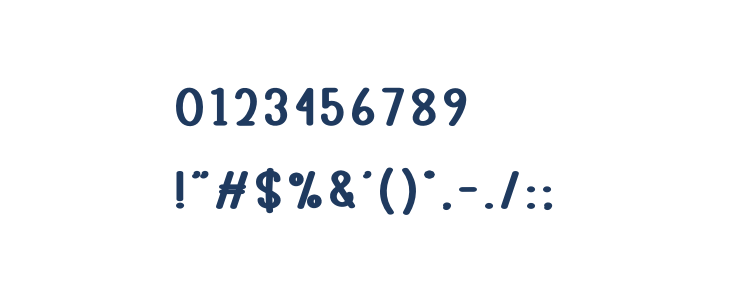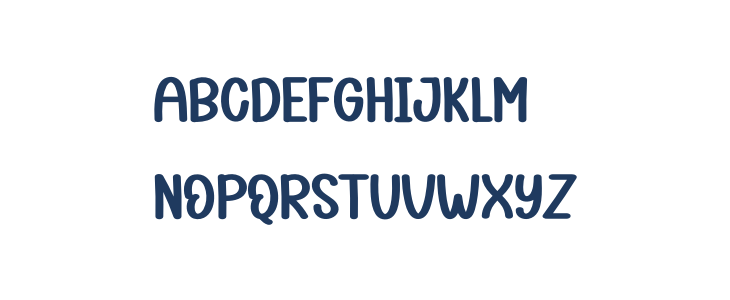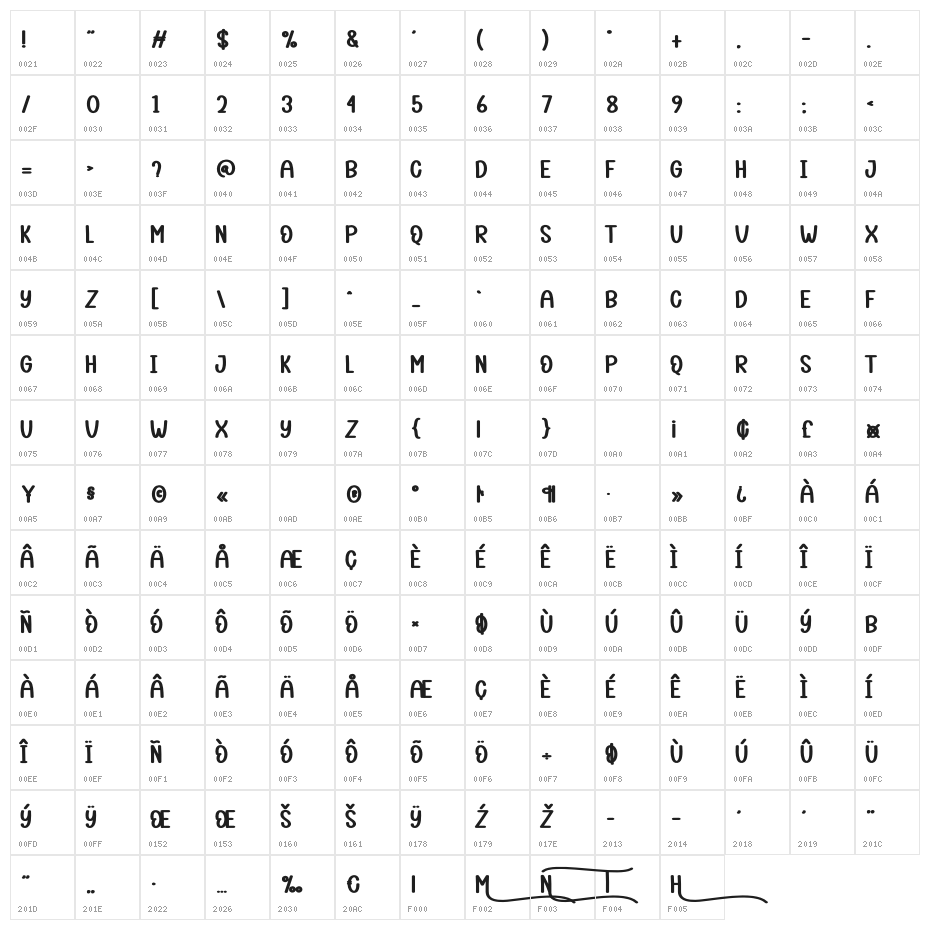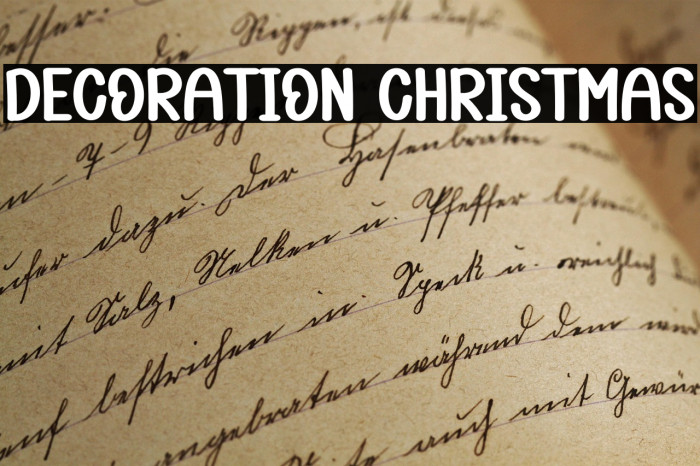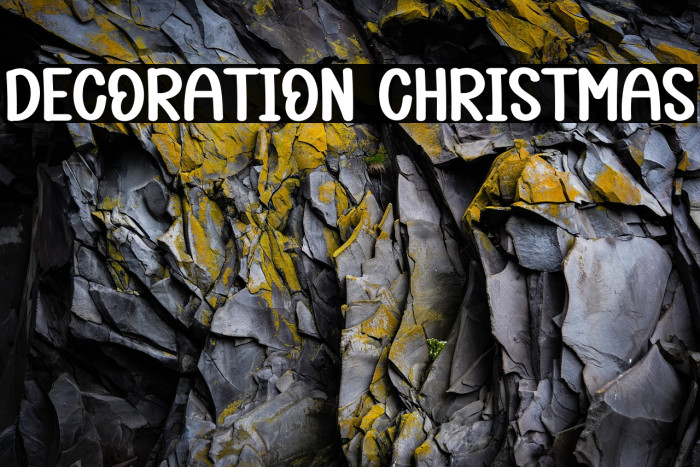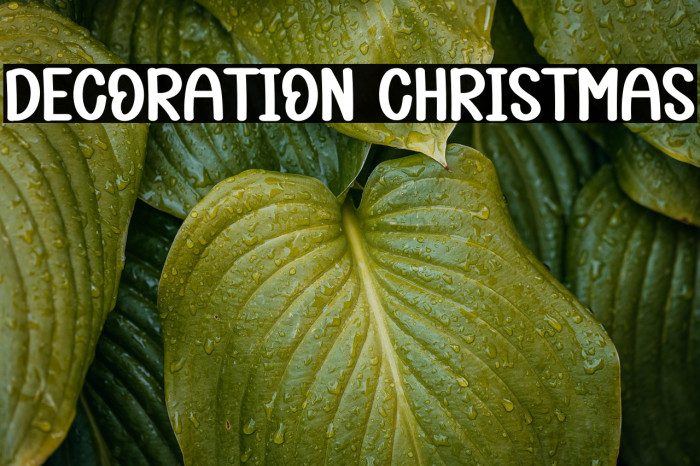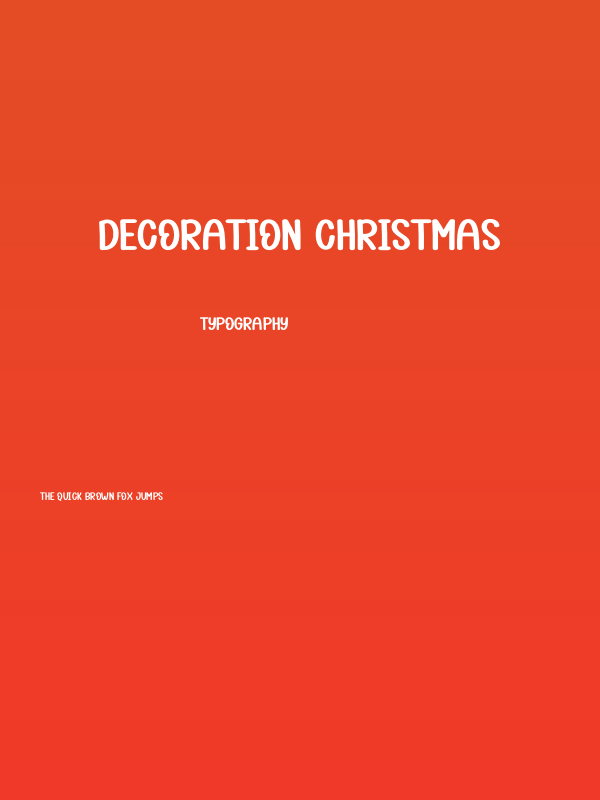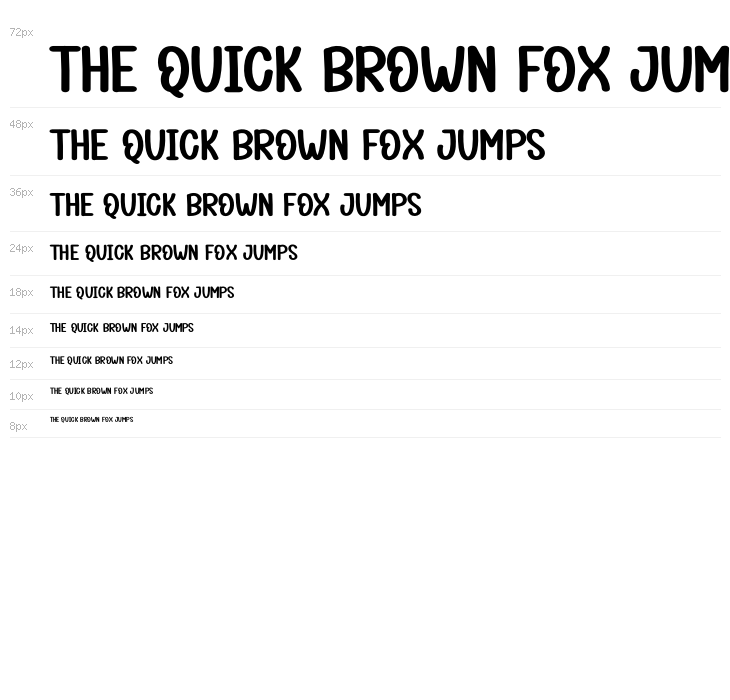
Decoration Christmas Font
Decoration Christmas Description
A playful, rounded sans-serif font with uniform stroke width, soft curves, and friendly character shapes. The letters are upright and evenly spaced, giving a casual and approachable appearance.
| Overall Style | Decorative, Playful, Modern |
| Use Case | Headlines, Posters, Greeting cards, Branding |
| Proposed Projects | Holiday cards, children's books, festive posters, party invitations, branding for playful products. |